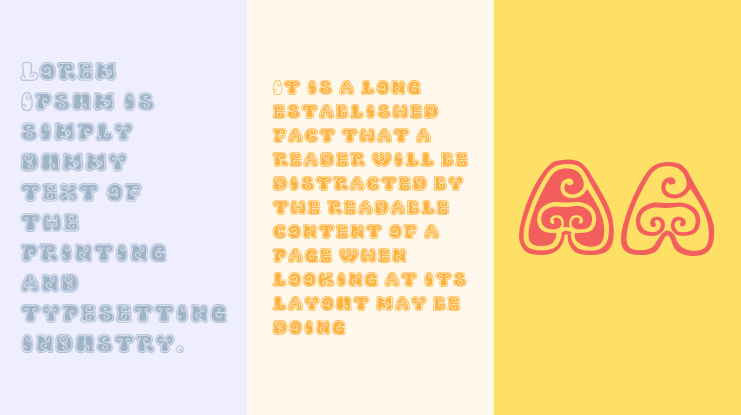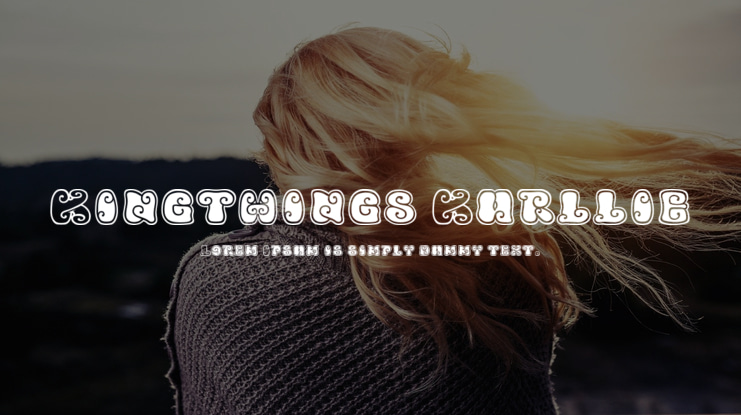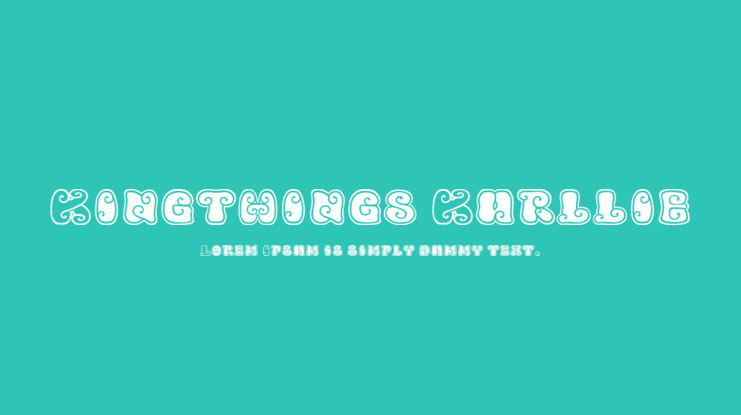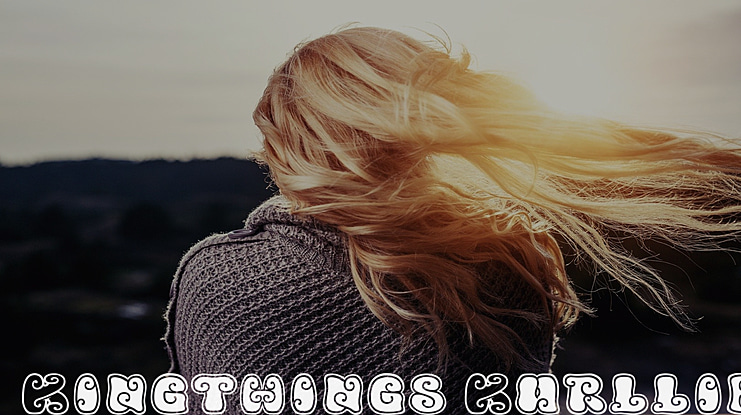
Kingthings Kurllie Font
Kevin King 2010
For a friend opening a shop selling jewelry, I designed a shop signage using Propitious Clouds - the ancient Chinese good luck symbol - long story short, I liked the few letters I'd made so here's the font - no lower case just a filled upper case and no numbers/punctuation - sorry!(ish)